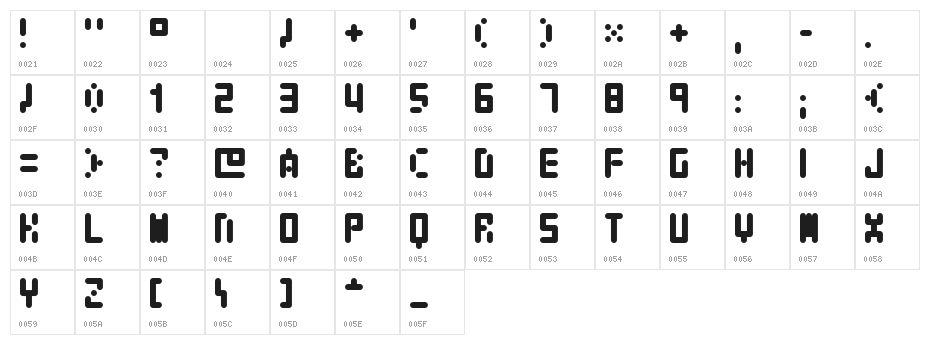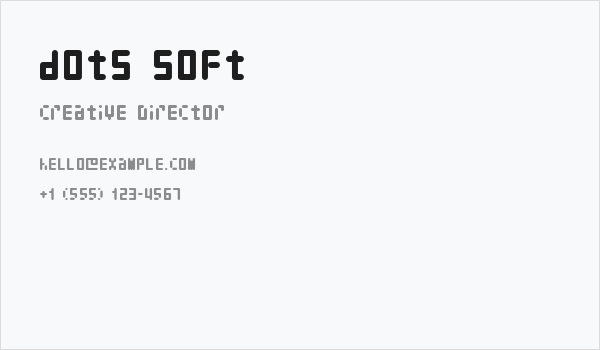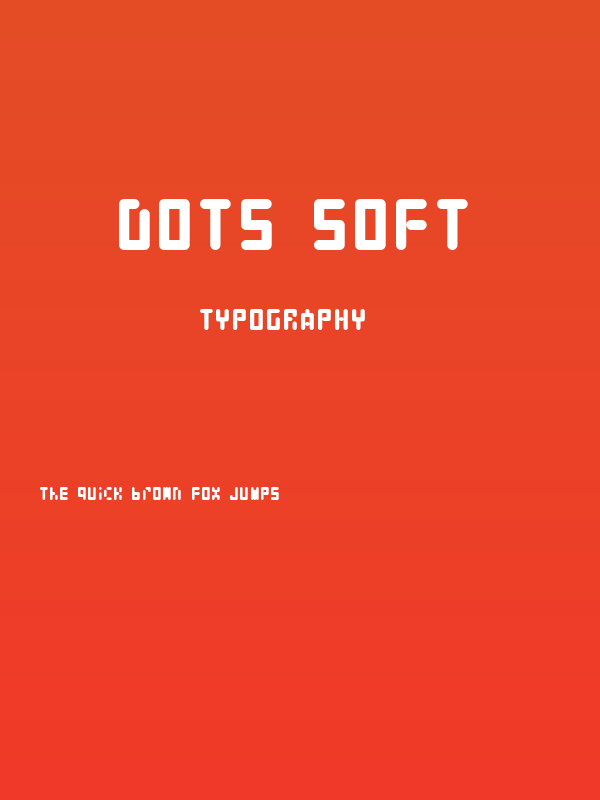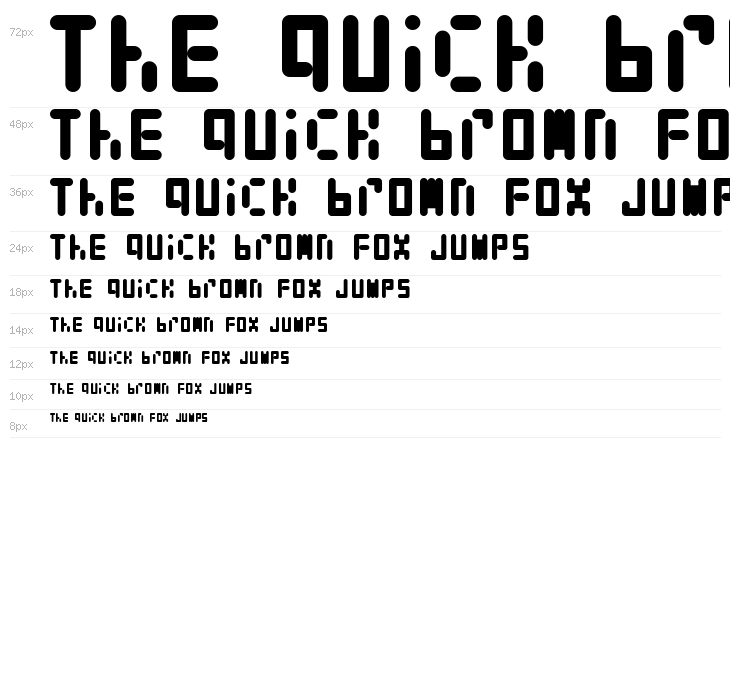
dots Soft Font
dots Soft Description
This font features a bold and playful design with rounded, bubble-like characters. Each letter and number is composed of thick strokes with soft, rounded edges, giving it a friendly and approachable appearance. The unique style incorporates a dotted pattern within the characters, adding a whimsical touch. This font is highly legible and stands out due to its distinct and modern aesthetic, making it suitable for eye-catching designs.
| Proposed Projects | Ideal for children's books, playful branding, posters, and creative digital content. |